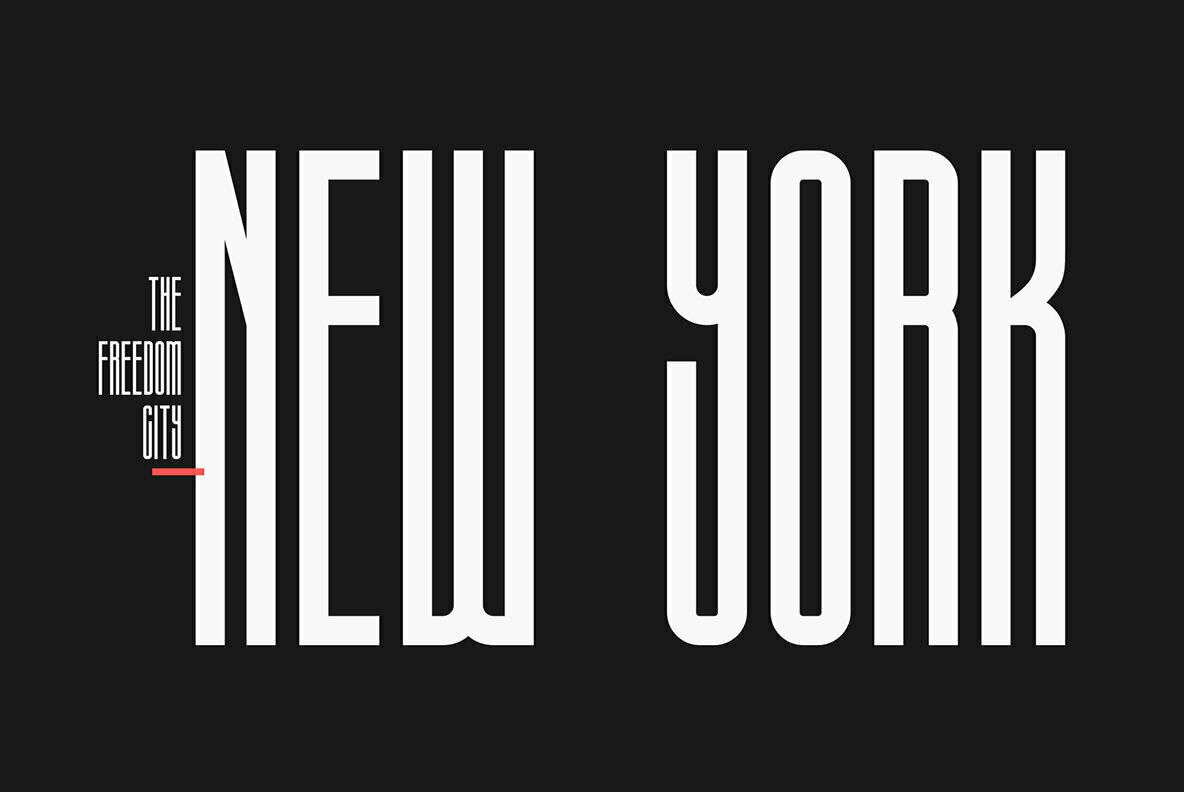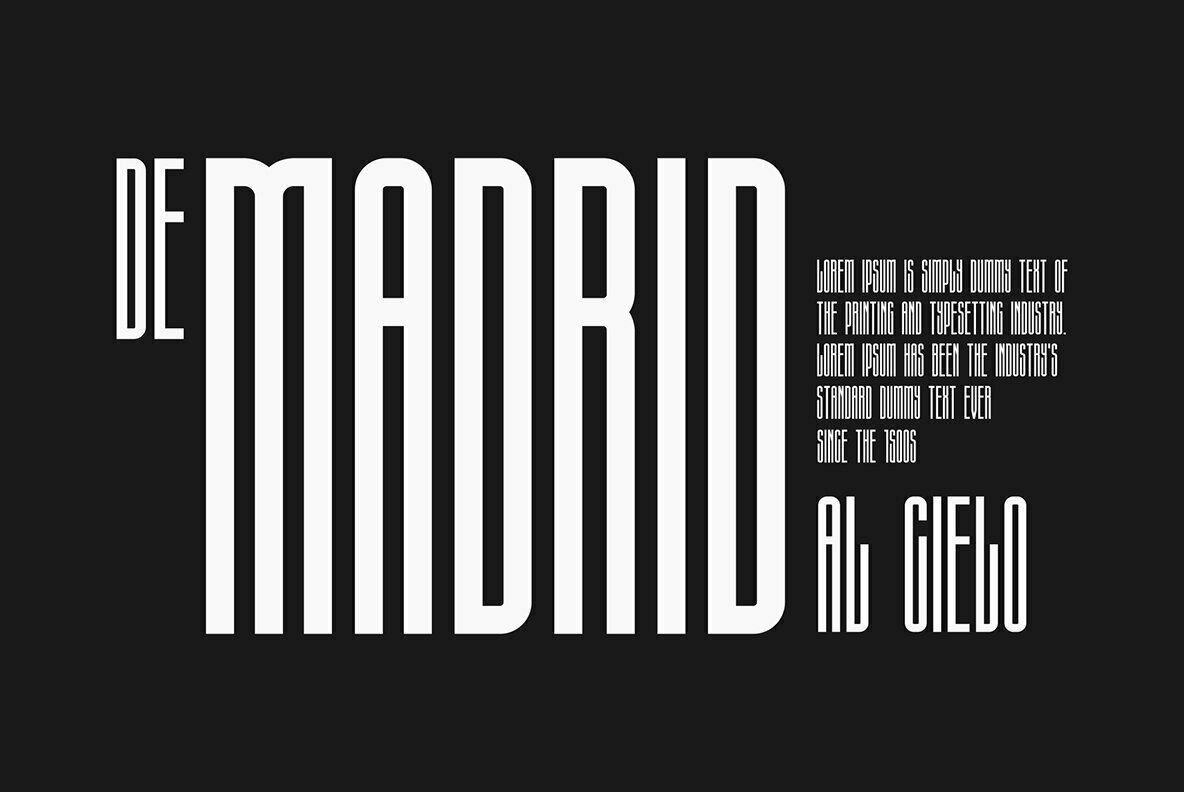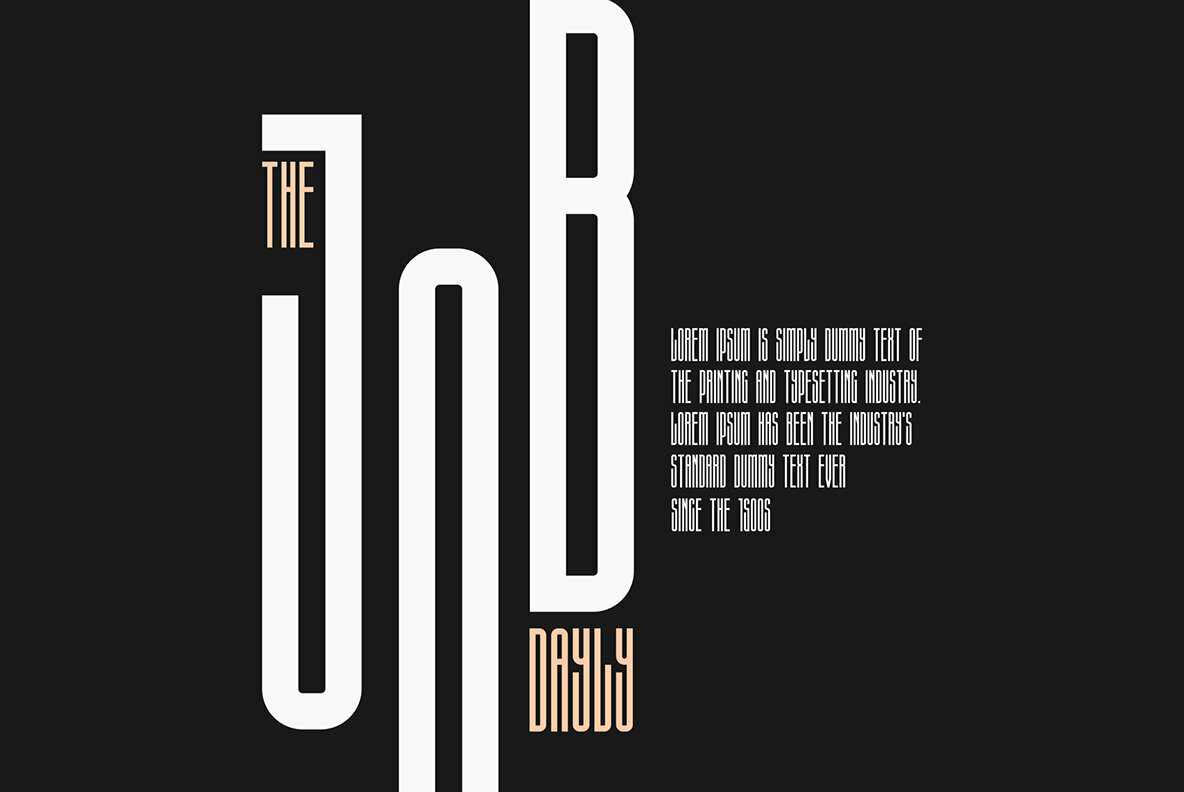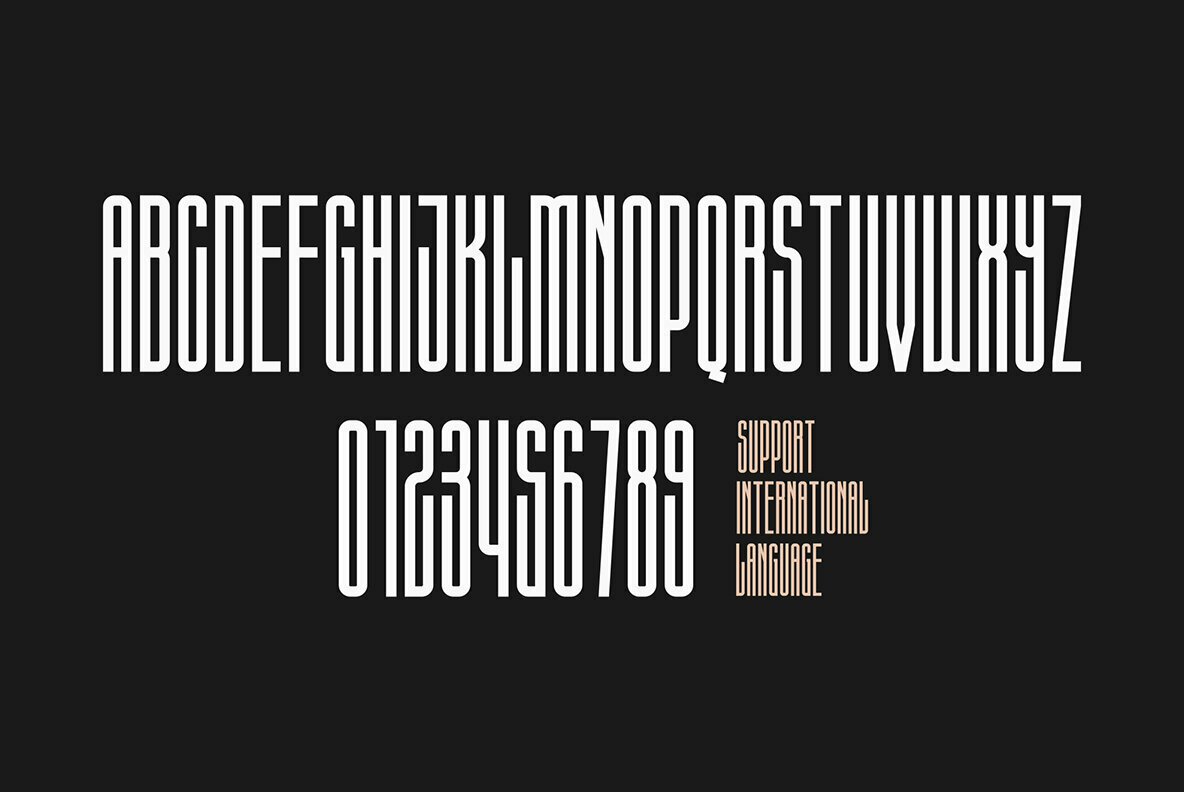
Calcio Font
Calcio is an ultra-condensed sans serif font that offers a minimalist charm, perfect for creating striking logos, sleek name cards, and stylish magazine layouts. Its clean, modern lines make it an excellent choice for invitations, headers, or even large-scale artwork, providing versatility across various design projects.Calcio: Ultra Condensed Minimalist Sans Serif